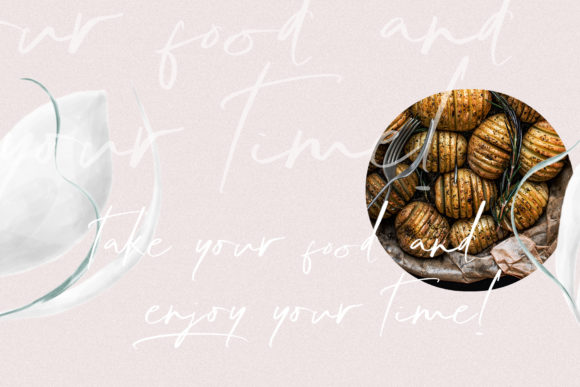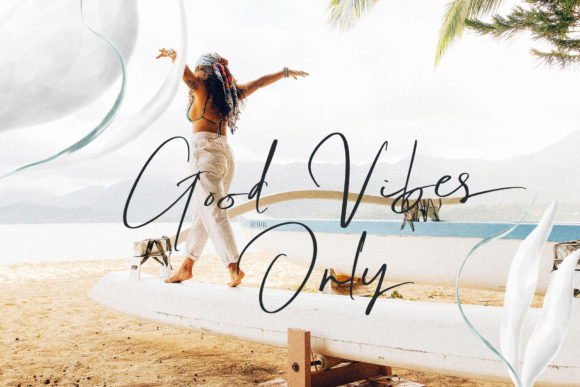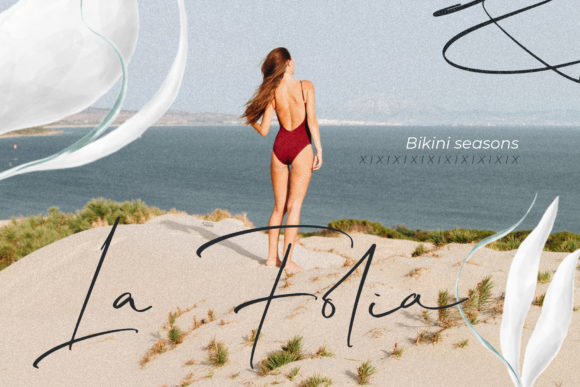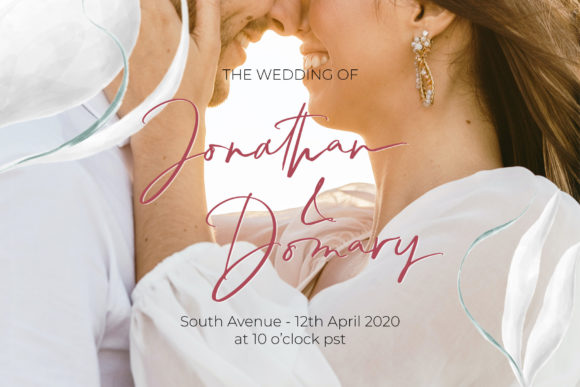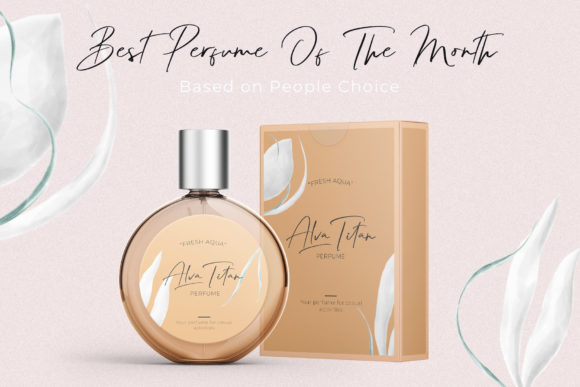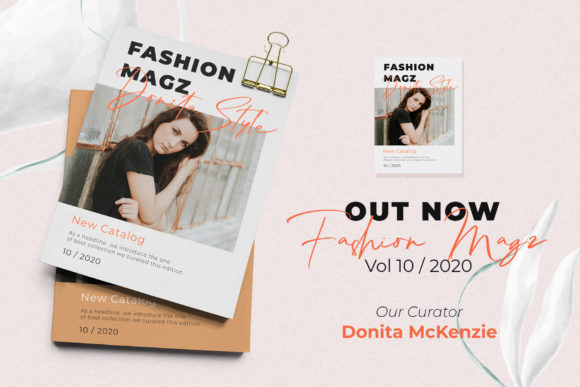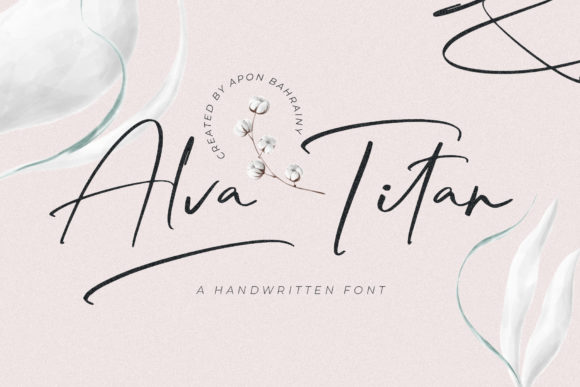
Introducing Alva Titan Font: Elevate Your Designs with a Fresh Handwritten Style
In the world of design, fonts play a crucial role in conveying messages, evoking emotions, and creating a lasting impression. For designers and crafters looking for a unique and versatile font to enhance their projects, Alva Titan Font is an excellent choice. This fresh handwritten font is designed to make your designs stand out, with its distinctive ending swash and extra underline features.
What Makes Alva Titan Font Special?
Alva Titan Font is not just another ordinary font. Its handwritten style gives it a personal and approachable feel, making it perfect for a wide range of design applications. Whether you’re creating daily quotes, custom logos, titles, posters, headlines, social media posts, invitations, packaging, or other design projects, Alva Titan Font is ready to use and adapt to your needs.
One of the standout features of Alva Titan Font is its ending swash. This elegant flourish adds a touch of sophistication and creativity to your designs, setting them apart from the rest. Additionally, the extra underline feature provides further customization options, allowing you to emphasize specific parts of your text and add more depth to your designs.
Versatility at Its Best: Use Cases for Alva Titan Font
The versatility of Alva Titan Font is one of its most significant advantages. Here are some of the many ways you can use this font to elevate your designs:
- Daily Quotes: Add a personal touch to your inspirational quotes with Alva Titan Font. Its elegant and cursive style makes it perfect for sharing motivational messages on social media or creating visually appealing quote posters.
- Custom Logos: Create a unique and memorable logo for your brand with Alva Titan Font. Its distinctive style will help your brand stand out and leave a lasting impression on your customers.
- Titles and Posters: Use Alva Titan Font to create eye-catching titles and posters for events, promotions, or announcements. Its bold and cursive style is sure to grab attention and convey your message effectively.
- Headlines and Social Media Posts: Make your social media posts and headlines more engaging with Alva Titan Font. Its fresh and modern style will help you connect with your audience and increase your online presence.
- Invitations and Packaging: Add a touch of elegance and sophistication to your invitations and packaging with Alva Titan Font. Its beautiful handwritten style will make your designs feel more personal and special.
Why Designers and Crafters Love Alva Titan Font
Designers and crafters love Alva Titan Font for its unique style, versatility, and ease of use. Here are some reasons why:
- Easy to Read: Despite its elegant and cursive style, Alva Titan Font is easy to read, making it perfect for body text and captions.
- Highly Customizable: With its extra underline feature and ending swash, Alva Titan Font offers a high level of customization, allowing you to tailor your designs to your specific needs.
- Time-Saving: Alva Titan Font is ready to use, saving you time and effort in your design process. You can focus on creating stunning designs without worrying about the font.
Alva Titan Font is a fresh and exciting handwritten font that can elevate your designs to the next level. Its unique style, versatility, and ease of use make it an excellent choice for designers and crafters looking for a font that can adapt to their needs. Whether you’re creating daily quotes, custom logos, titles, posters, headlines, social media posts, invitations, packaging, or other design projects, Alva Titan Font is ready to help you create stunning designs that leave a lasting impression.